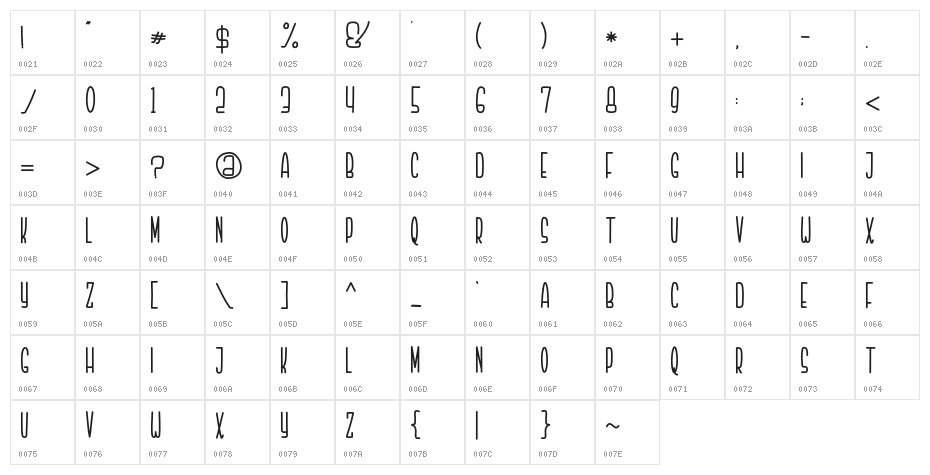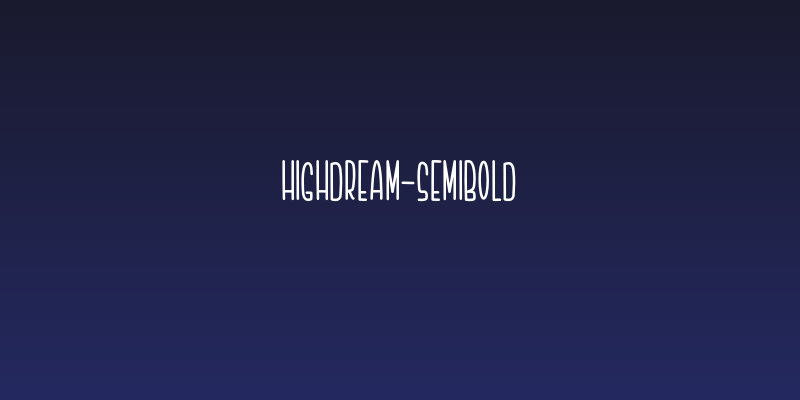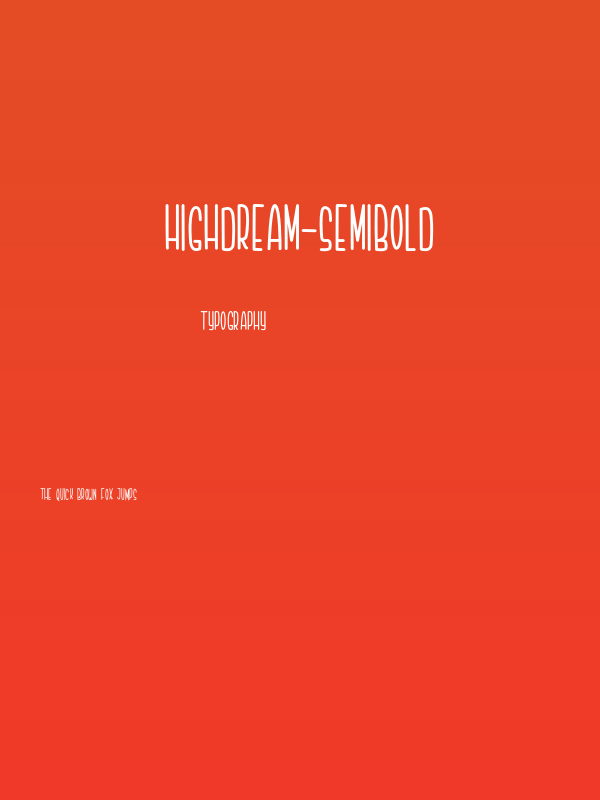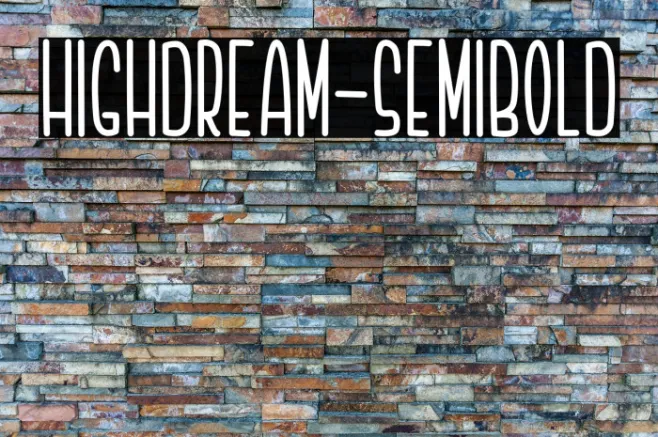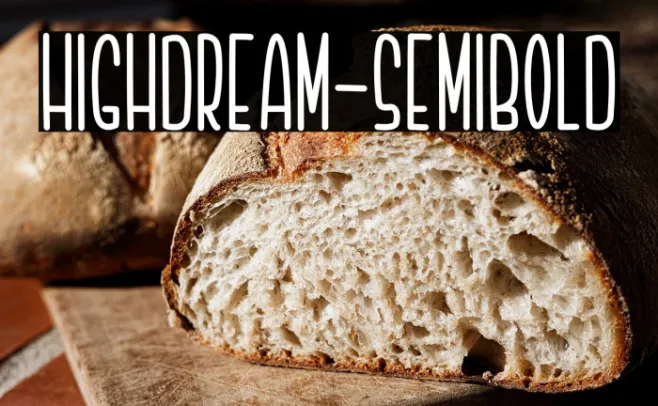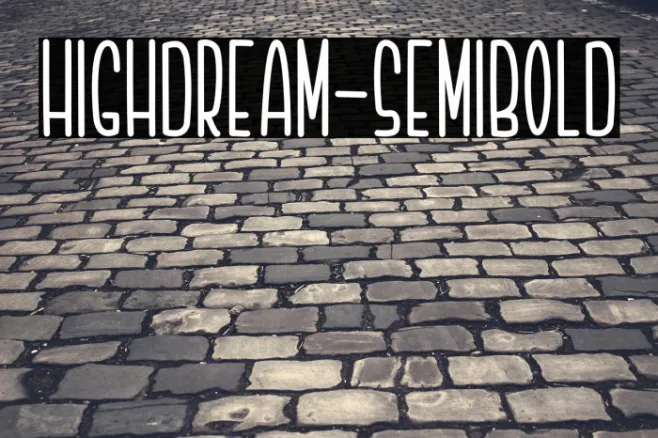
Highdream-Semibold Font
Highdream-Semibold Description
This font features a playful and modern design with elongated, narrow characters that give it a unique and stylish appearance. The uppercase and lowercase letters maintain a consistent height, contributing to a cohesive look. The numerals are distinct and easy to read, while the special characters add a touch of whimsy with their creative forms. The overall design is clean and contemporary, making it suitable for a variety of creative projects.
| Proposed Projects | Ideal for branding, posters, and creative digital content where a modern and playful aesthetic is desired. |